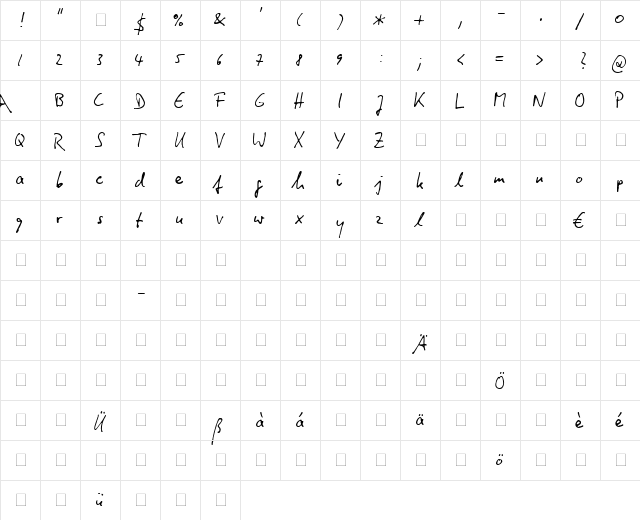
Handschrift AH Regular
Design Context for Handschrift AH Typeface
Handschrift AH flows with the natural rhythm of handwritten lettering, making it ideal for designs that call for warmth and personal expression.
Font Pairing: Combine Handschrift AH with a simple geometric sans for maximum contrast — the tension between flowing curves and clean structure is a classic typographic pairing.
Pro Tip: Pair Handschrift AH with a clean sans-serif for supporting text. The contrast between fluid script and geometric structure creates an elegant typographic hierarchy.